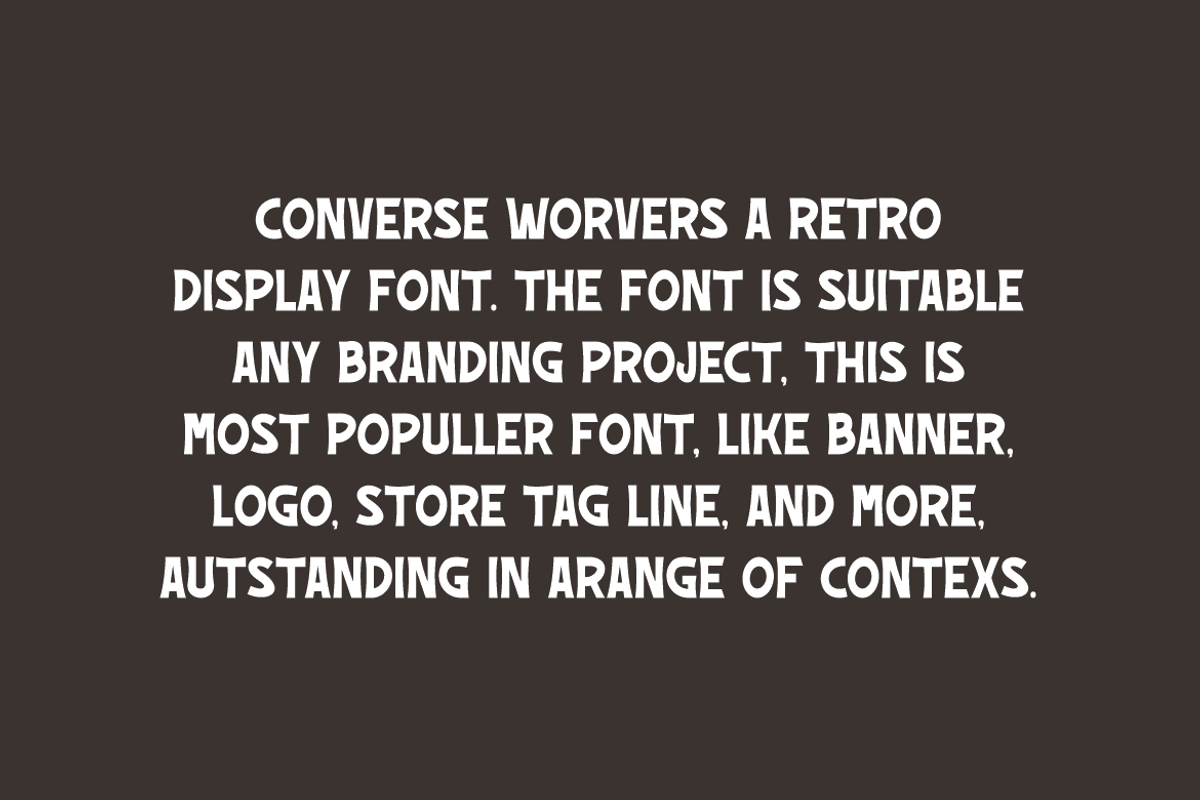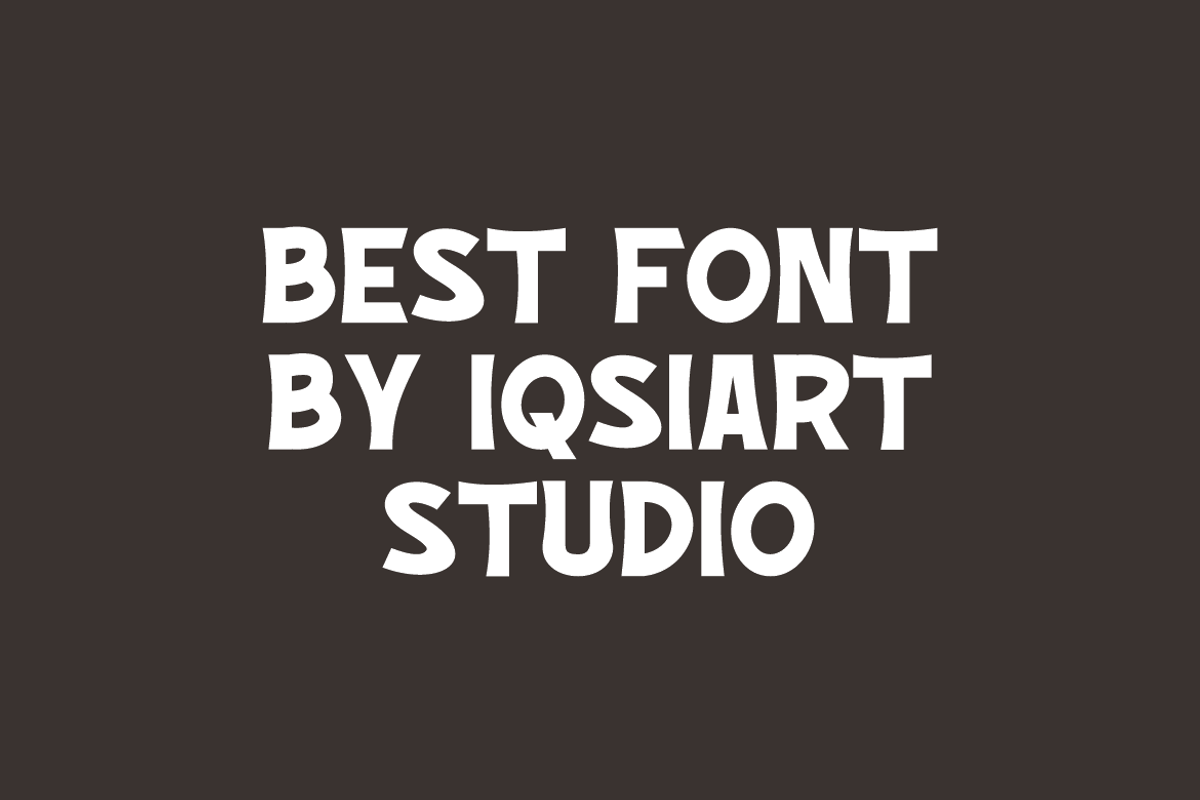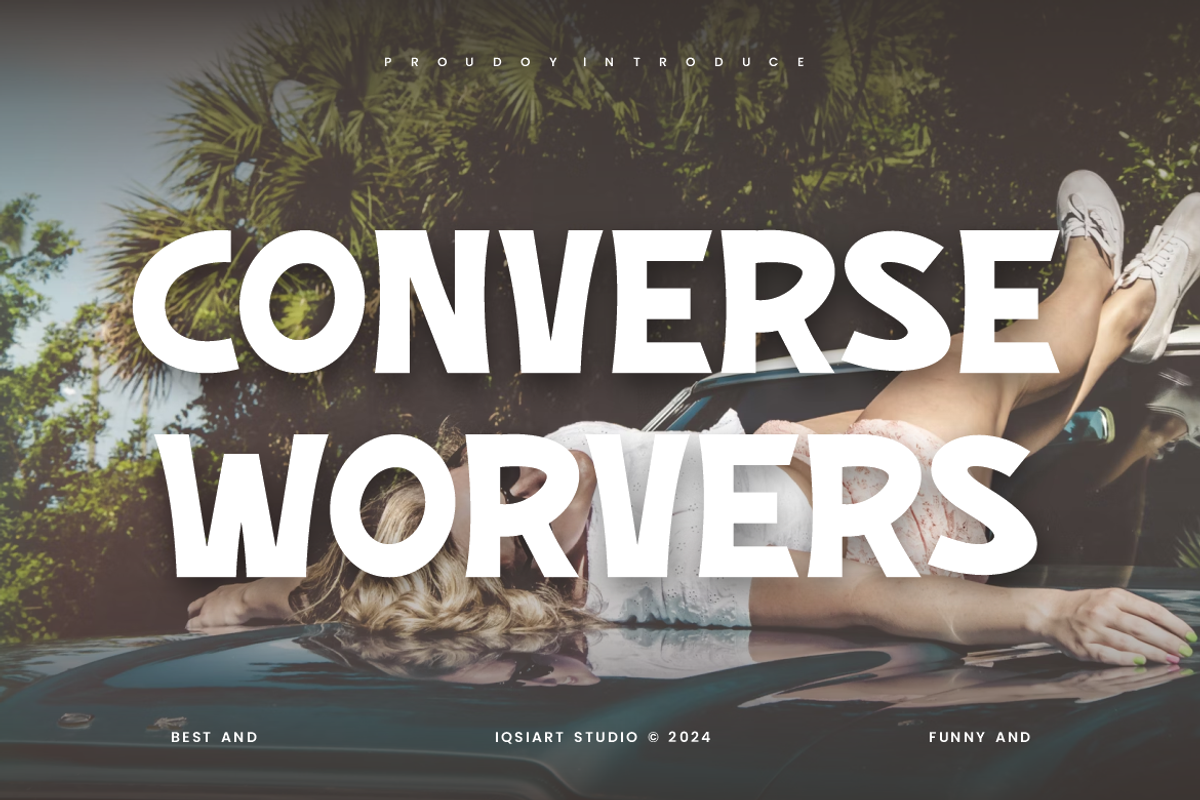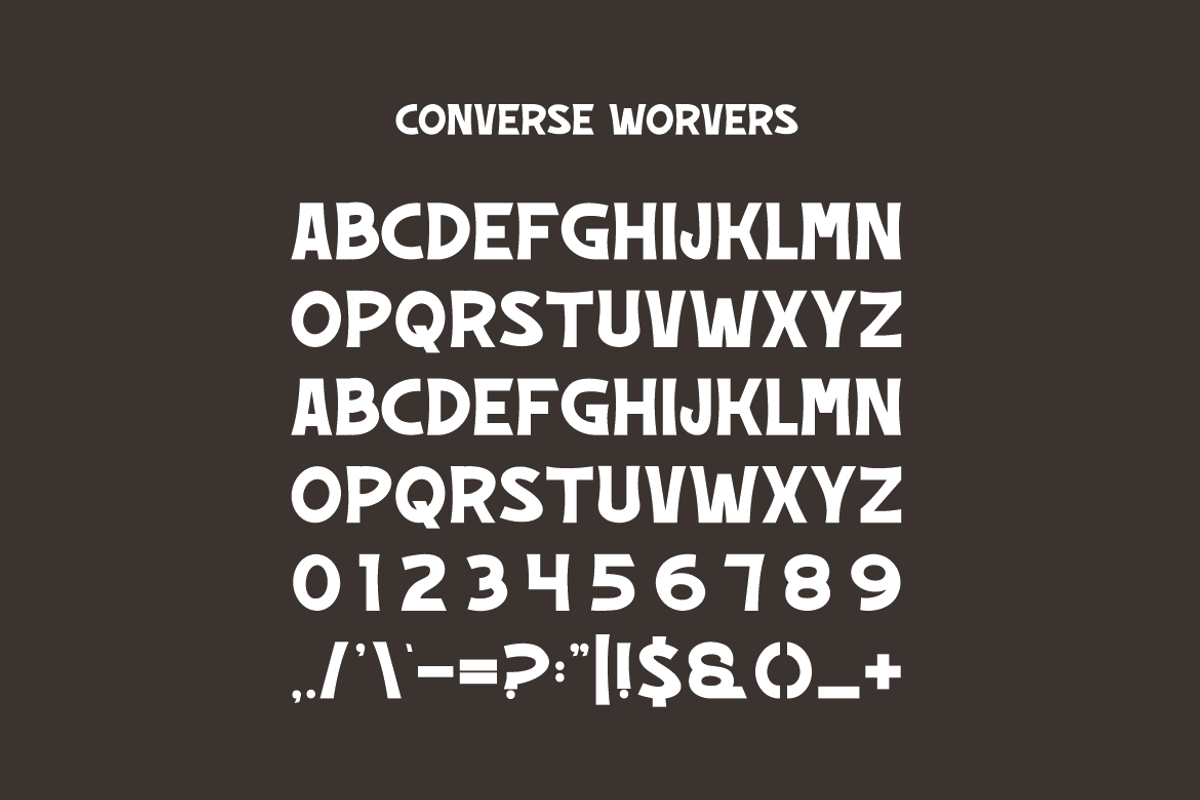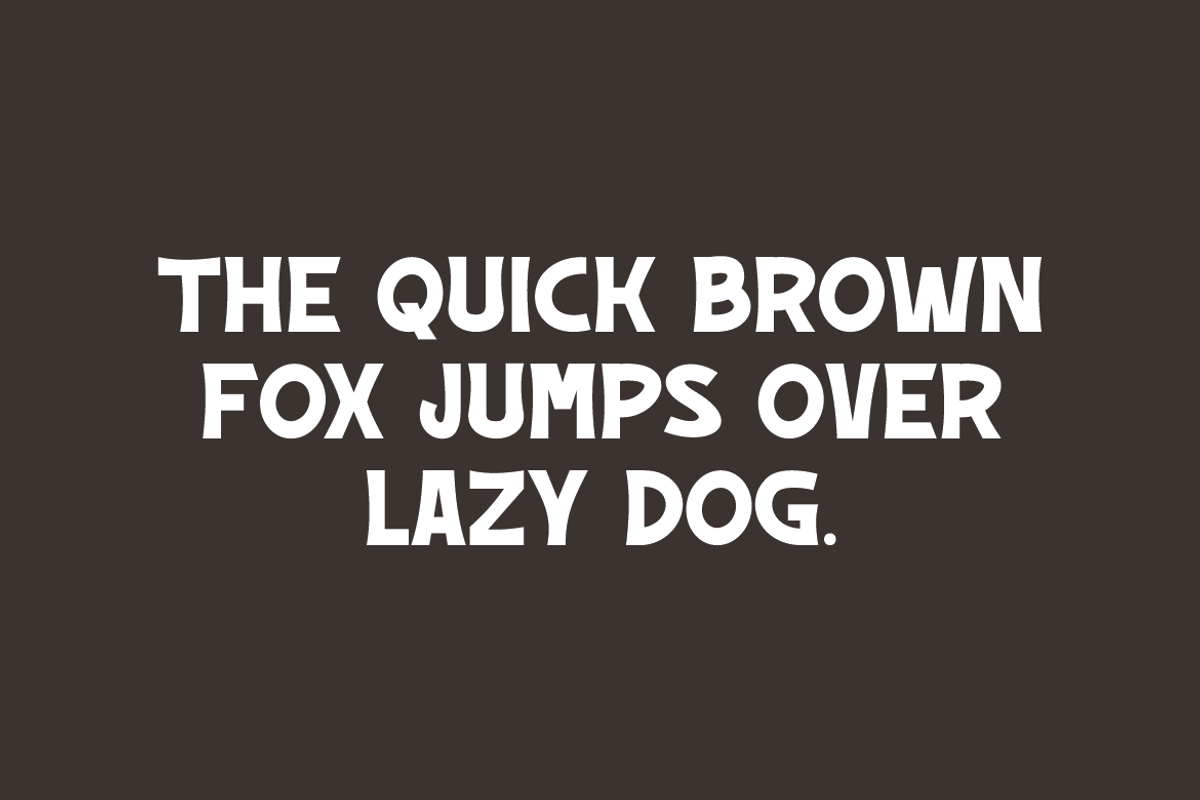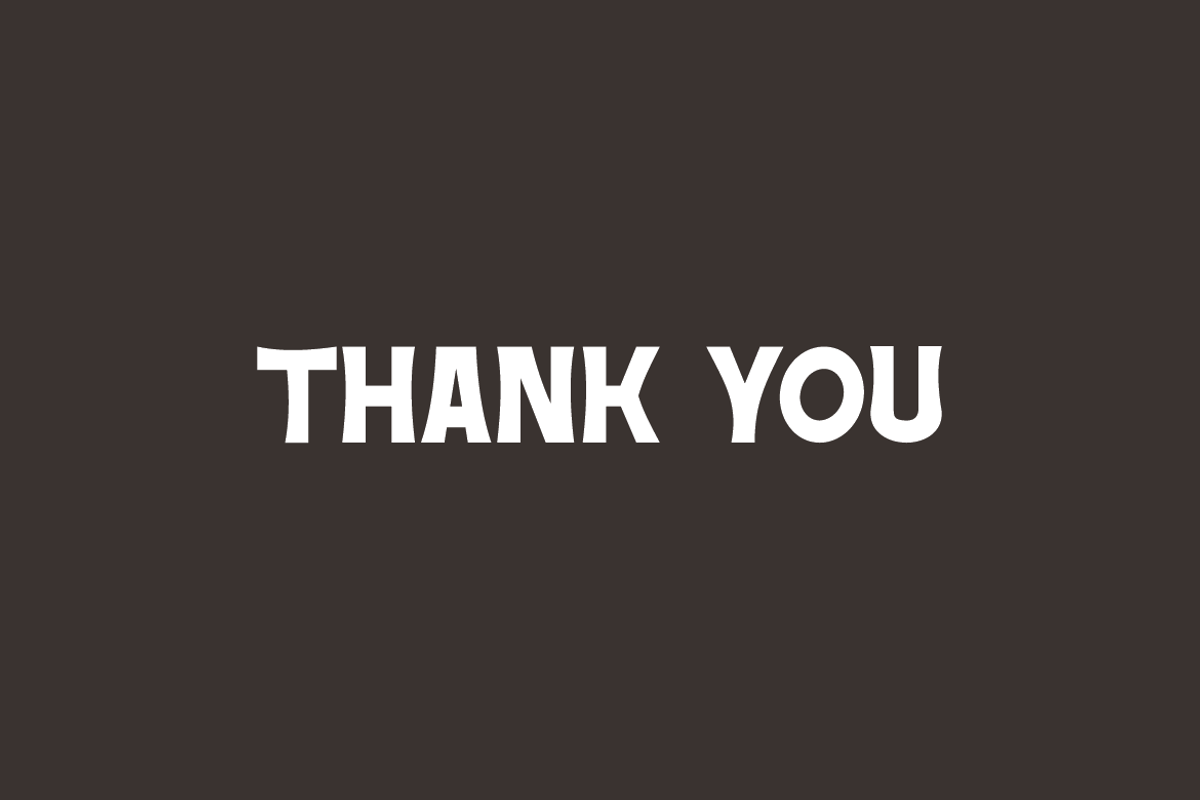
Converse Worvers - Retro Font
Converse Worvers Font is a best and authentic display font. This font can be used for your various needs. We provide various themes and font styles. visit our profile to get a wide variety of themes and different font styles you need.